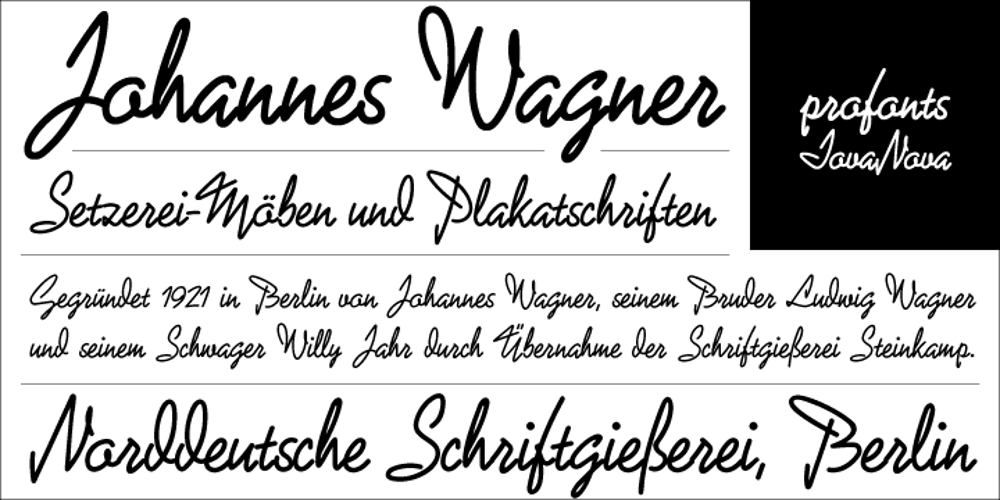
Iova Nova Font Family was designed by Profonts Studio and published by profonts. Iova Nova contains 1 styles and family package options. Iova Nova is based on Jowa Script, designed by J. Wagner in 1967. The typeface has been redesigned, digitized, completed and expanded as OpenType Pro in the profonts studio. The resdesign includes the modification of the numerals which originally had capheight size. Besides, we complete the character set to cover Western and Eastern Europe including Turkey and Romania. The font contains more than 300 characters. Iova Nova is a young, fresh and casual design.